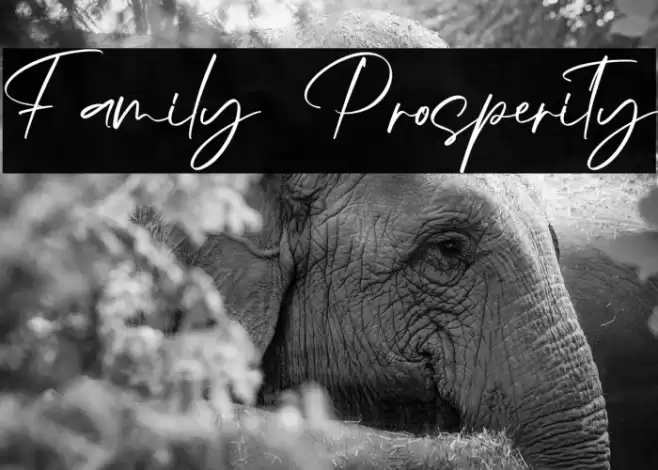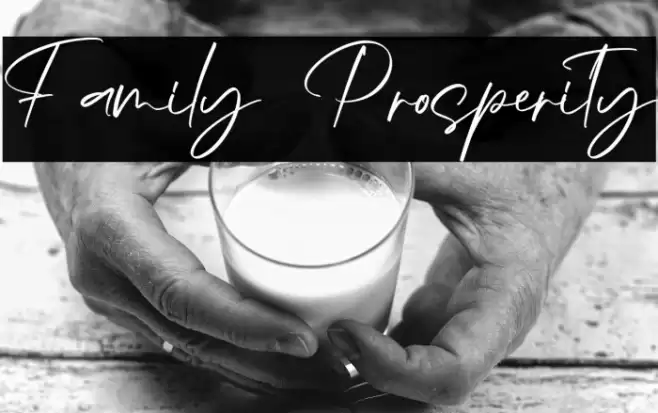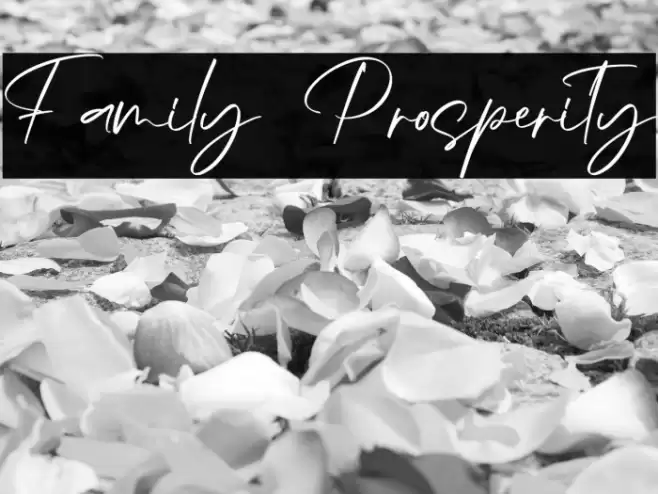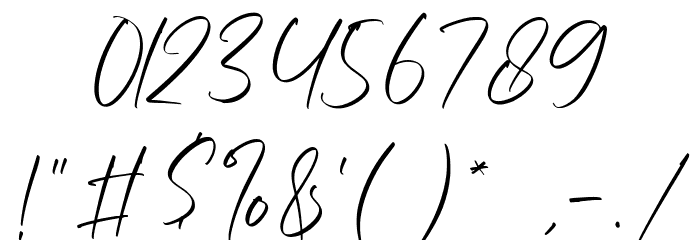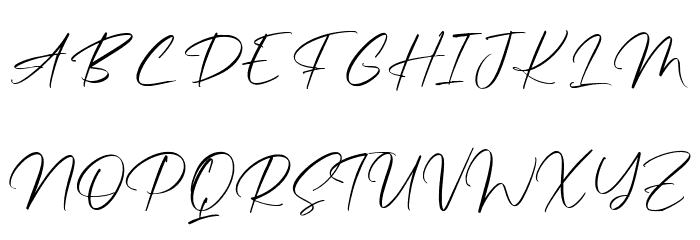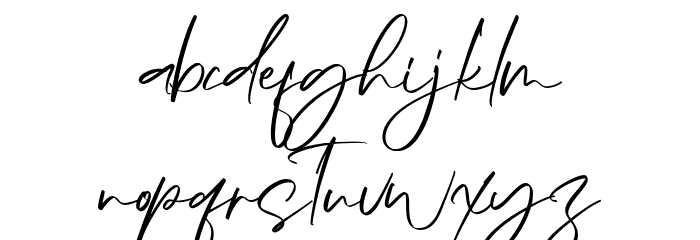
Family Prosperity Font
Family Prosperity Description
This font exudes a sense of elegance and fluidity, characterized by its handwritten style that mimics natural cursive writing. The letters are gracefully connected, creating a seamless flow that is both sophisticated and approachable. The uppercase letters maintain a consistent height, while the lowercase letters exhibit a playful variation in size, adding a touch of whimsy. The numerals and special characters are crafted with the same attention to detail, ensuring a cohesive look across all elements. The strokes are smooth and slightly varied in thickness, providing a subtle contrast that enhances readability without compromising the font's delicate appearance.
A graceful, handwritten script font with elegant, flowing letters from Uncategorized fonts.
- Proposed Projects: Ideal for wedding invitations, personal branding, greeting cards, and elegant packaging designs.
- Overall Style: Elegant
- Use Case: Logos, Invitations, Personal Branding